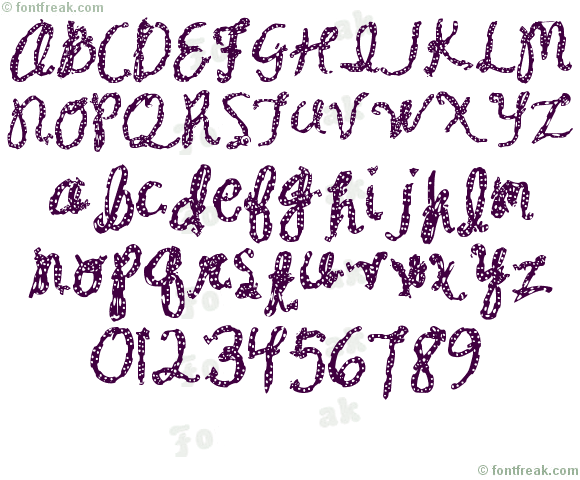
Baxter Dash
About Baxter Dash
The Baxter Dash font, created by Nicki Throndsen in 2009, is a unique display typeface that captivates with its whimsical and playful design. This font falls into the decorative category, characterized by its irregular, hand-drawn strokes that evoke a sense of spontaneity and creativity. The stroke weight varies throughout, providing an organic feel that contrasts nicely with more traditional fonts. The spacing between letters is intentionally uneven, enhancing its artistic flair and making it ideal for projects that require a touch of personality.
Baxter Dash is particularly suited for creative applications such as wedding invitations, where its charming aesthetics can add a personal touch to the occasion. It also shines in children's book covers, where its playful nature can engage young readers. Additionally, this font works wonderfully for promotional materials for artisanal cafes or restaurants, as it conveys a warm and inviting atmosphere. Content creators looking to add a distinctive element to their social media graphics will find Baxter Dash to be an excellent choice, helping their posts stand out in a crowded digital landscape.
What makes the Baxter Dash font stand out is its ability to blend artistic expression with practical usability. Its distinctive design captures attention while maintaining legibility, making it a versatile choice for various creative projects. Whether you are looking for a Baxter Dash font free download for personal use or for your next professional endeavor, this typeface offers an engaging solution that invites creativity and individuality.